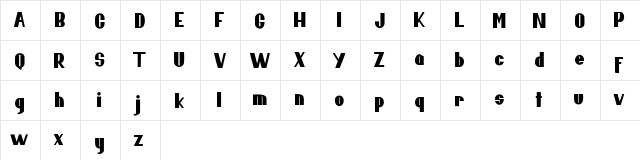
Bagela FREE Regular
Design Context for Bagela FREE Typeface
Bagela FREE takes a measured approach to typography — its balanced proportions and neutral character make it a reliable workhorse for both digital and print work.